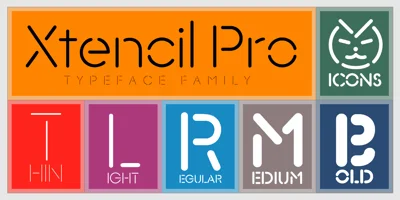
Xtencil Pro Font
The Xtencil Pro Font is a strikingly modern and highly versatile stencil typeface, characterized by its clean, sharp forms and an undeniable sense of precision and contemporary design. Imagine its commanding presence gracing architectural blueprints, adding an authentic, utilitarian edge to industrial product branding, or creating impactful titles for cutting-edge technology presentations and urban-themed art. Its robust construction and iconic segmented appearance also make it an excellent choice for modern corporate identities, striking signage systems, unique apparel design, and any visual where a strong, no-nonsense, and highly visible statement is paramount. Whether you're aiming for a powerful, assertive look or a refined, minimalist aesthetic with an industrial touch, Xtencil Pro Font delivers with its unmistakable character, ensuring your visuals demand attention and convey a sense of strength and innovative design.
What makes Xtencil Pro Font so exciting is its remarkable ability to blend the raw, practical aesthetic of a stencil font with a sophisticated, professional finish. Unlike many traditional stencil fonts that can appear rough, Xtencil Pro offers a refined execution that makes it suitable for high-end applications while retaining its distinctive segmented charm. It’s more than just a font; it’s a design solution that creates visual interest without sacrificing legibility, even with its characteristic breaks. Its contemporary appeal and robust performance make it an invaluable asset for designers looking to communicate a sense of modern efficiency, precision, and a cutting-edge attitude. For a blend of strength and sophistication, explore the Xtencil Pro Font.
The Xtencil Pro Font family is typically structured to offer a range of weights and styles that amplify its bold and impactful appeal. Beyond the primary Xtencil Pro Regular typeface, you might find companion styles such as a more impactful Xtencil Pro Bold for even stronger emphasis, or perhaps Xtencil Pro Light for a slightly less imposing presence while maintaining its characteristic stencil cuts. The "Pro" designation often indicates an enhanced version, potentially including a broader character set, extended language support, or specific OpenType features that improve its functionality and design versatility. These diverse family members provide designers with the flexibility to establish a clear typographic hierarchy and maintain a consistent, high-impact, and authentically industrial yet refined aesthetic across all elements of their project, from dominant headlines and logos to supporting graphic elements.